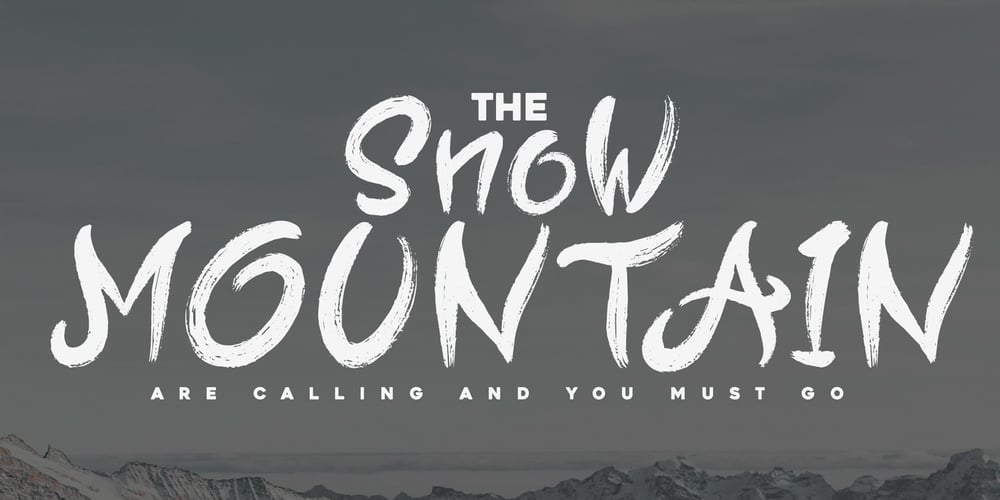
Snow Mountain Font Family was designed by Muhammad Helmi and published by Senekaligrafika. Snow Mountain contains 1 styles and family package options. “Snow Mountain” is a playful handwriting font special for winter display,that puts a smile on your project and will inspire you to create something fun and memorable.“Snow Mountain” will help you to create special and touching typographical design for vacation and new year projects, for every day or the happiest day in life, happy birthday cards, winter project, greeting card, headings, flyer, product packaging, book cover, printed quotes, logos, and many more.It is really universal and modern font.The owner of endless possibilities!